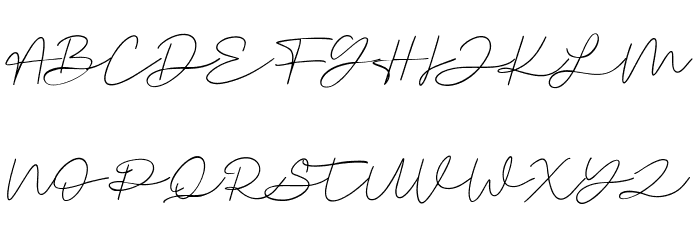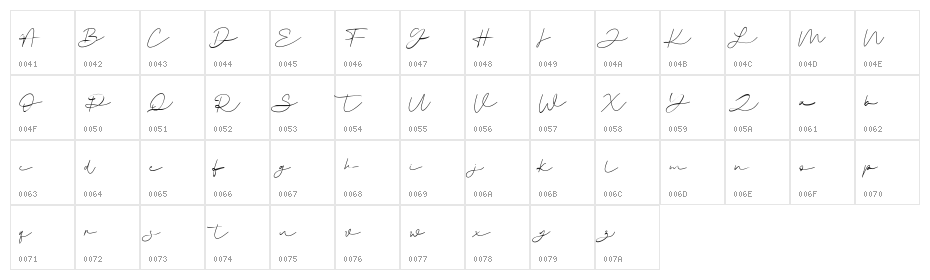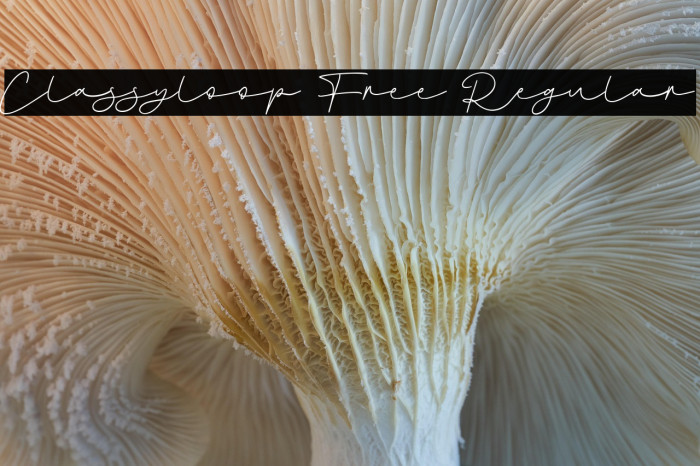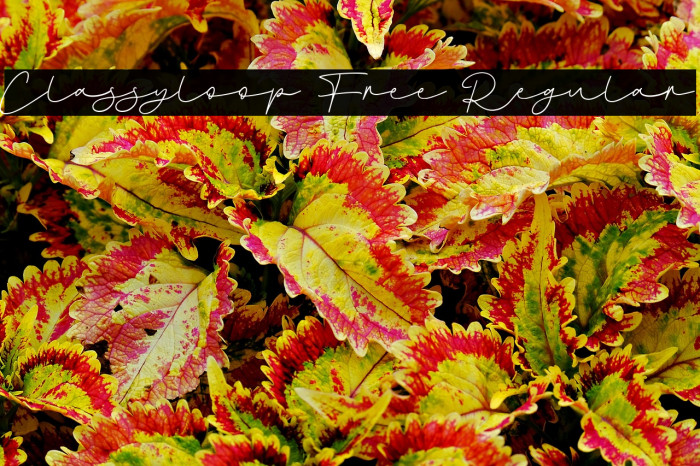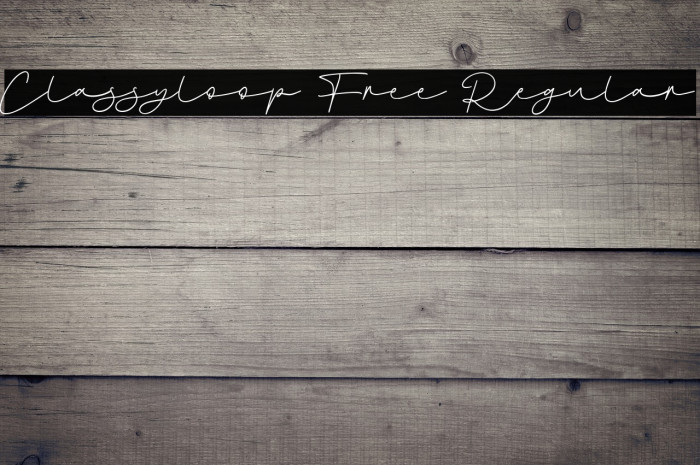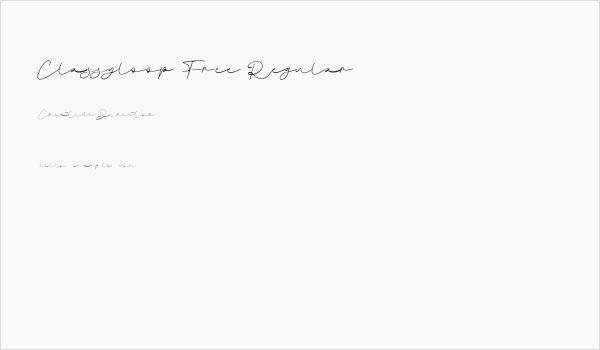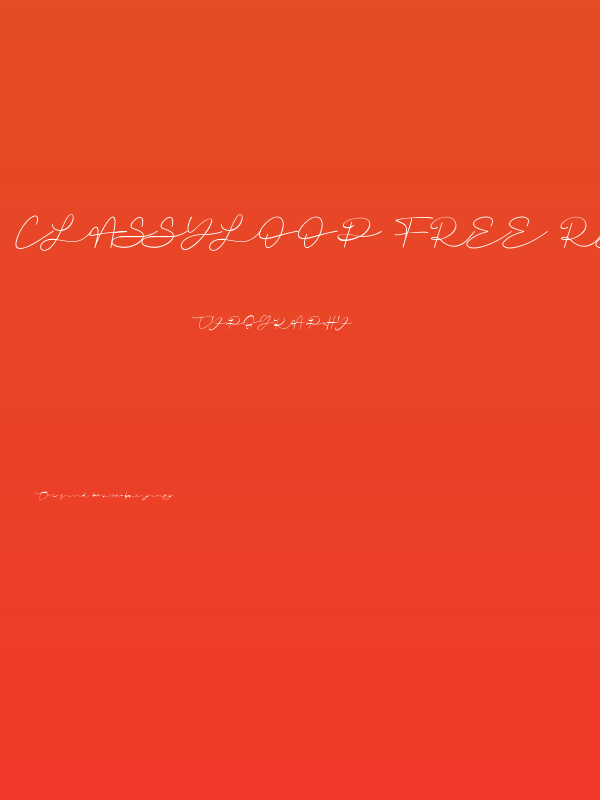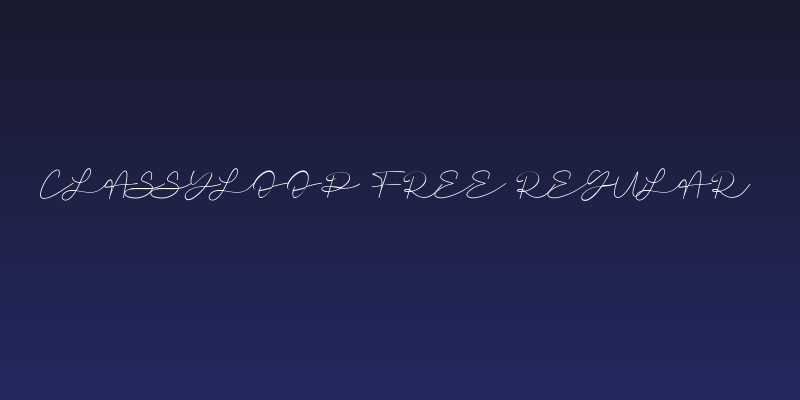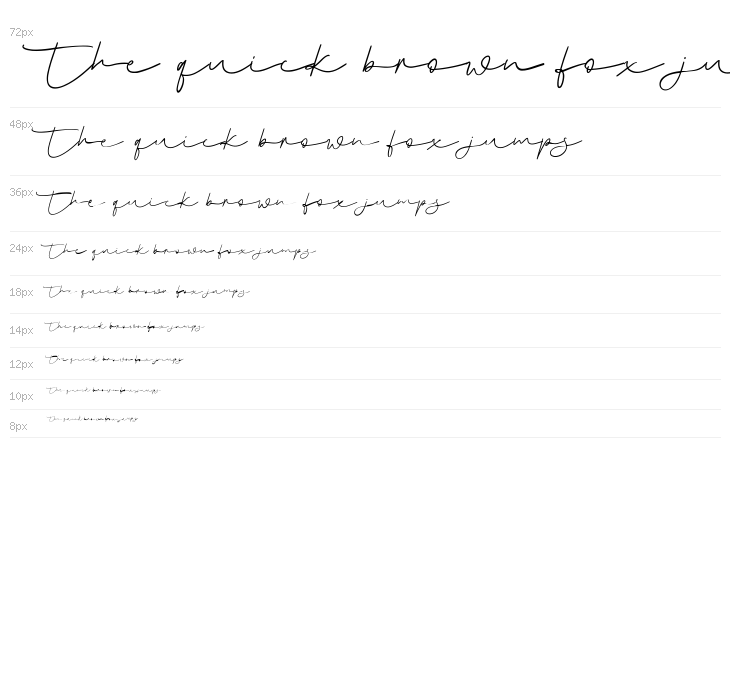
Classyloop Free Regular Font
Classyloop Free Regular Description
This font exudes elegance and sophistication with its fluid, cursive style. The letters are interconnected, creating a seamless flow that mimics natural handwriting. The strokes are thin and delicate, giving it a light and airy feel. The uppercase letters maintain a consistent height, while the lowercase letters have a slight slant, enhancing the handwritten aesthetic. The font is versatile, suitable for both formal and informal contexts, and it captures attention with its graceful curves and loops.
| Proposed Projects | Ideal for wedding invitations, personal branding, greeting cards, and elegant logos. |